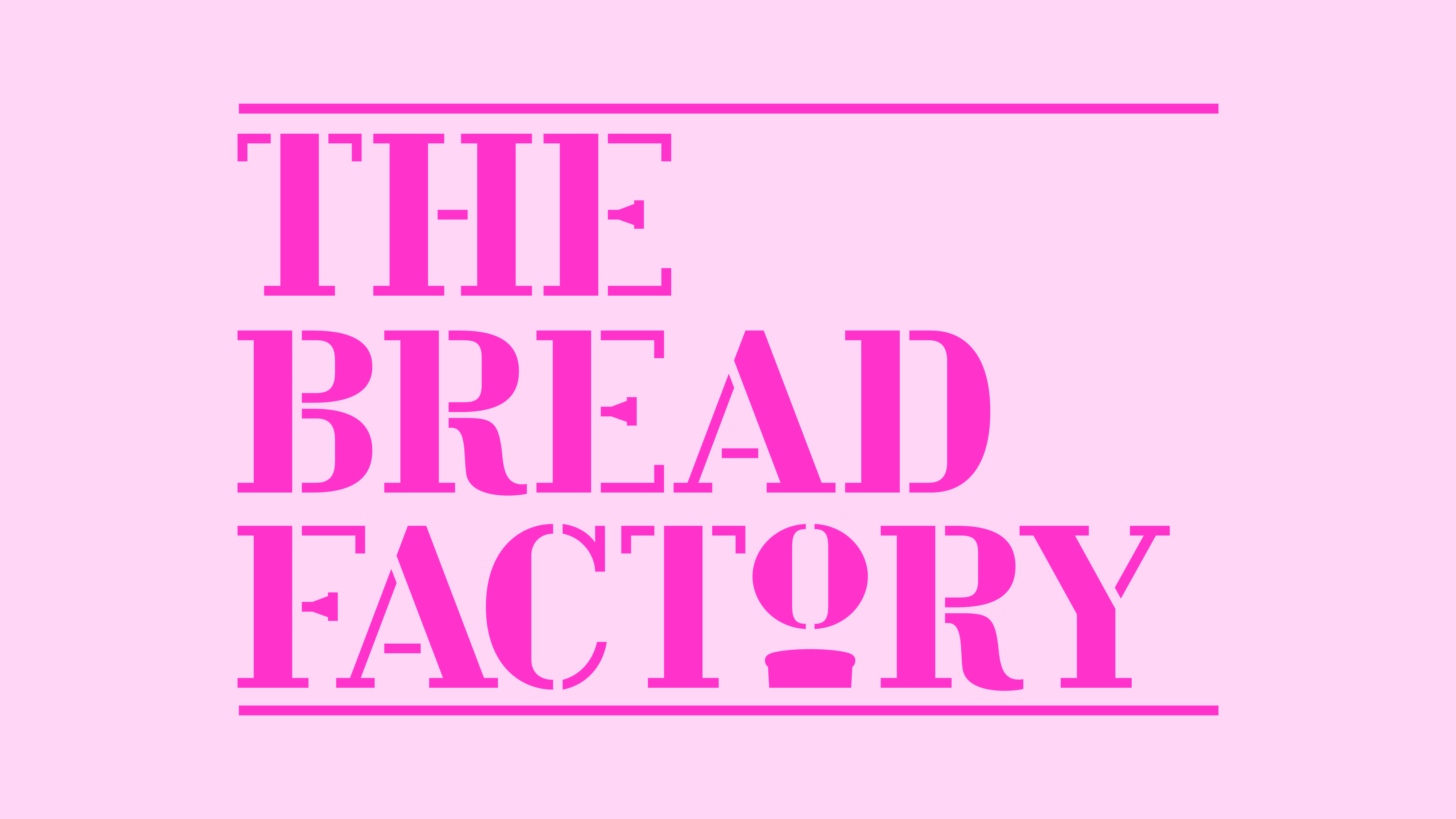
F37 Factory V1 Family
Grade II listed former Hovis flour mill.
The original mill was designed by architect E.W. Pugin in 1865 who was known for his Neo-Gothic architecture. The mill was taken over by Rank Hovis, Britains leading flour miller in 1960. The Bread Factory was given Grade II listed status in 1988 having survived two world wars despite heavy bombings in the area in WWII. Air-raid tunnels are still situated under the mill, dug out to protect mill and office workers.